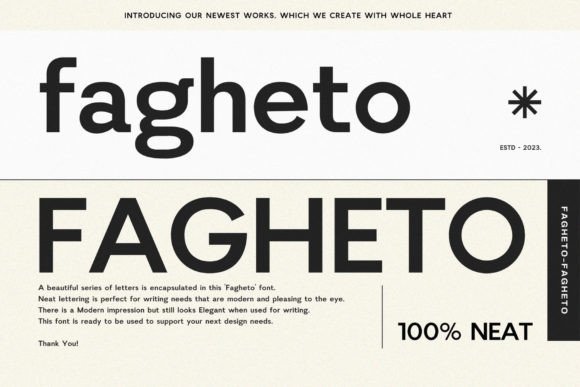
Fagheto Font
Introducing the Fagheto Font: A Timeless Masterpiece for Modern Expression
Immerse yourself in the world of typography with Fagheto Font, an exquisite sans-serif creation crafted by the renowned alifgraphic. This remarkable font is not just a collection of characters; it's an artistic expression that empowers you to unleash your creative vision.
With its elegant curves and bold strokes, Fagheto Font exudes an air of sophistication that is unmatched. Its versatility knows no bounds, making it the perfect choice for a wide range of design projects. From wedding invitations that exude timeless elegance to captivating social media posts that demand attention, Fagheto Font transforms ordinary words into captivating works of art.
Step into a world where imagination takes flight. Fagheto Font's versatility empowers you to:
- Craft wedding invitations that evoke the beauty and joy of your special day
- Design eye-catching social media posts that leave a lasting impression
- Create logos that embody your brand's unique identity
- Personalize stationary art that reflects your exquisite taste
- Unleash your creativity in countless other projects
With Fagheto Font, you're not just downloading a typeface; you're acquiring a tool that will elevate your designs to new heights. Its timeless appeal ensures that your creations will stand the test of time, leaving a lasting impact on all who encounter them.
Whether you're a seasoned designer or just starting your creative journey, Fagheto Font is the perfect companion. Its intuitive nature makes it easy to use, while its exceptional quality guarantees stunning results.
Don't settle for ordinary fonts. Embrace the extraordinary with Fagheto Font. Transform your design dreams into reality and captivate your audience with every stroke. Download Fagheto Font today and unlock a world of typographic possibilities!